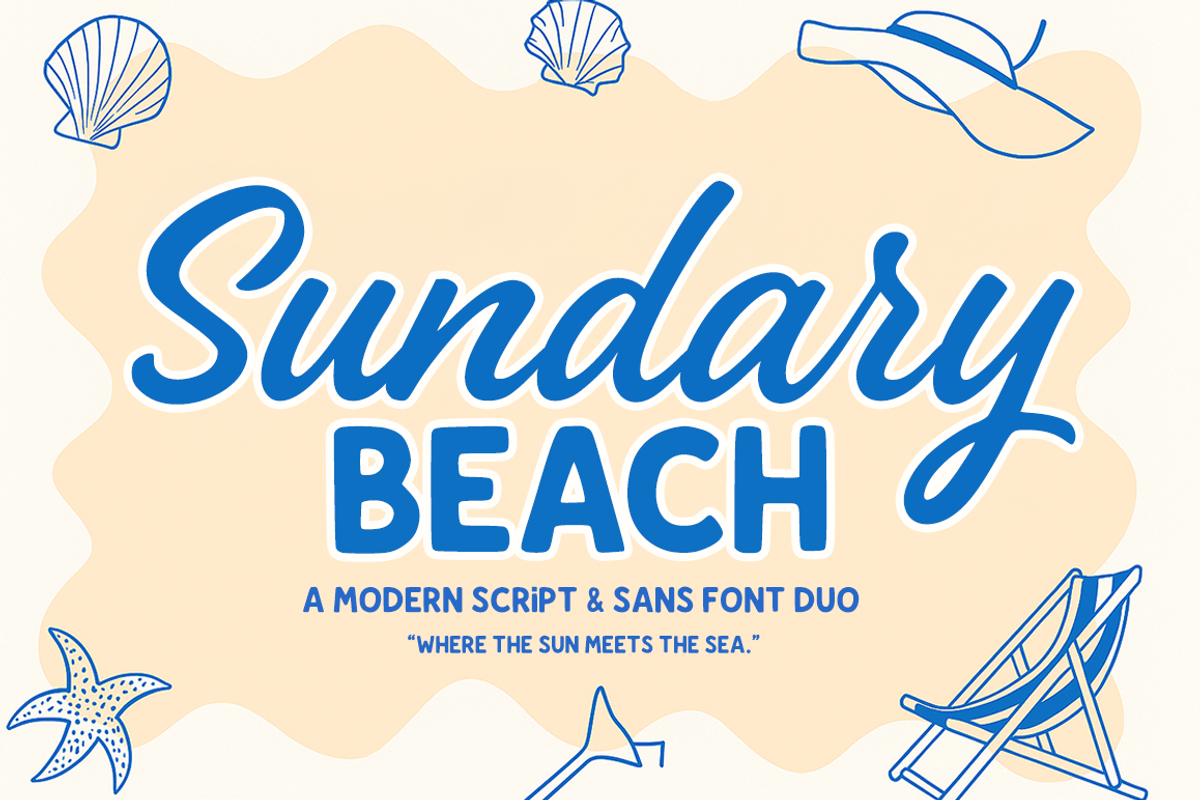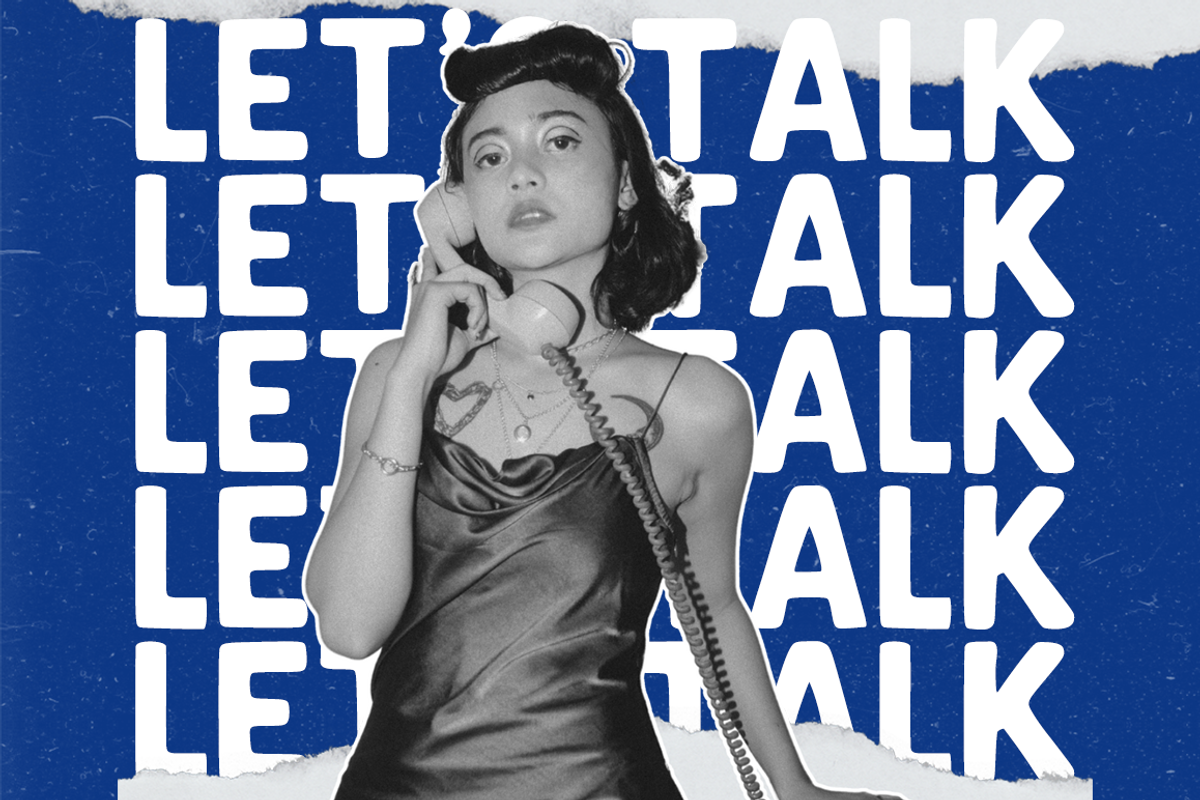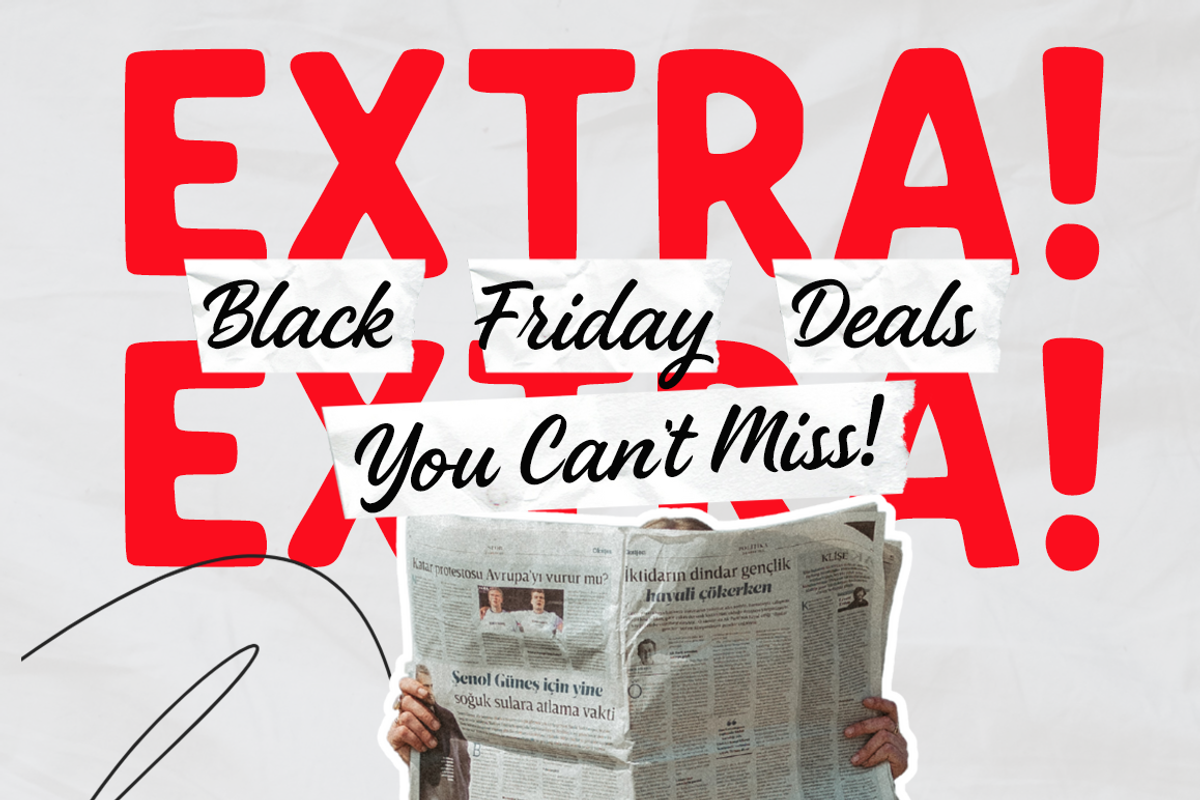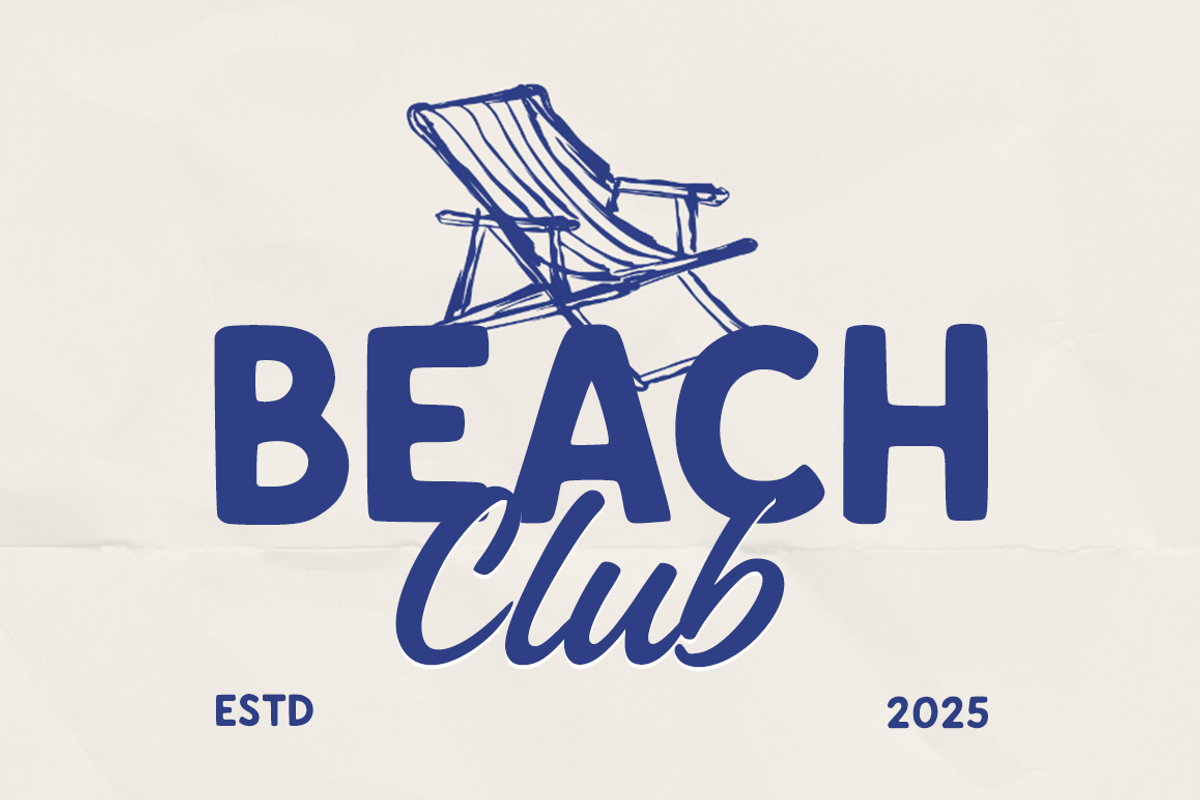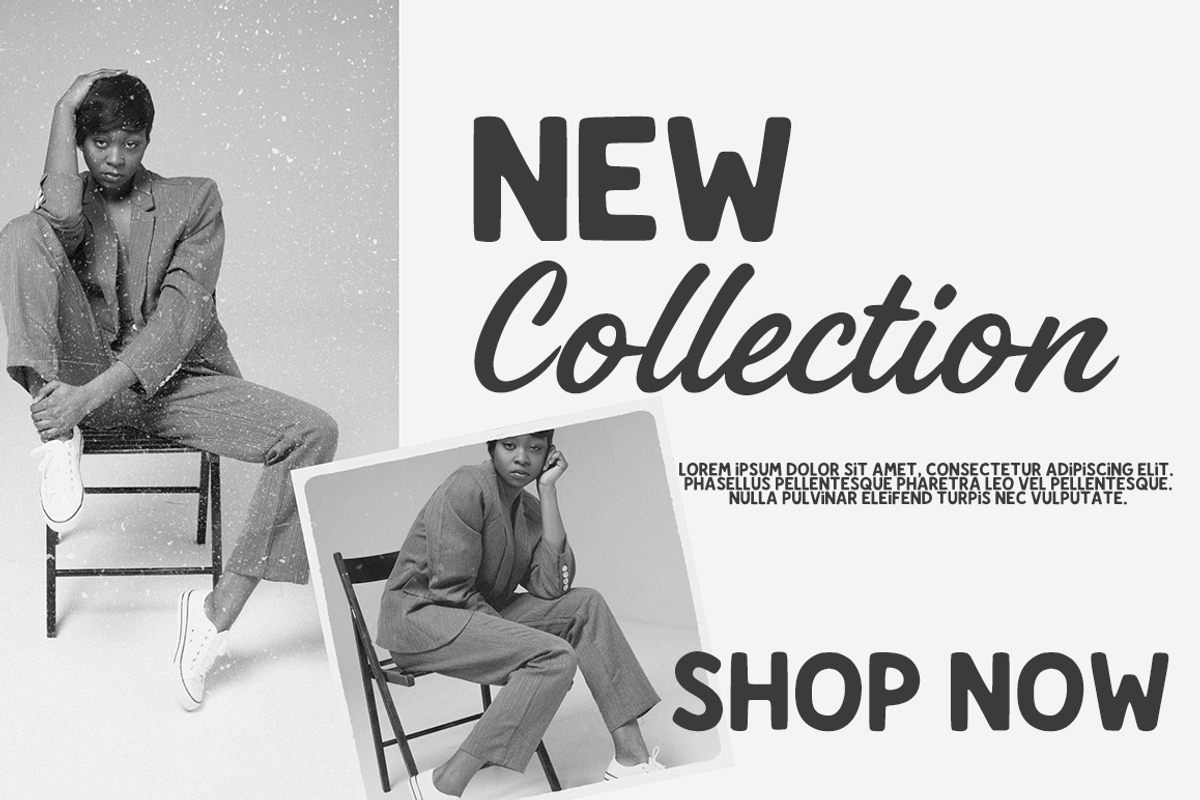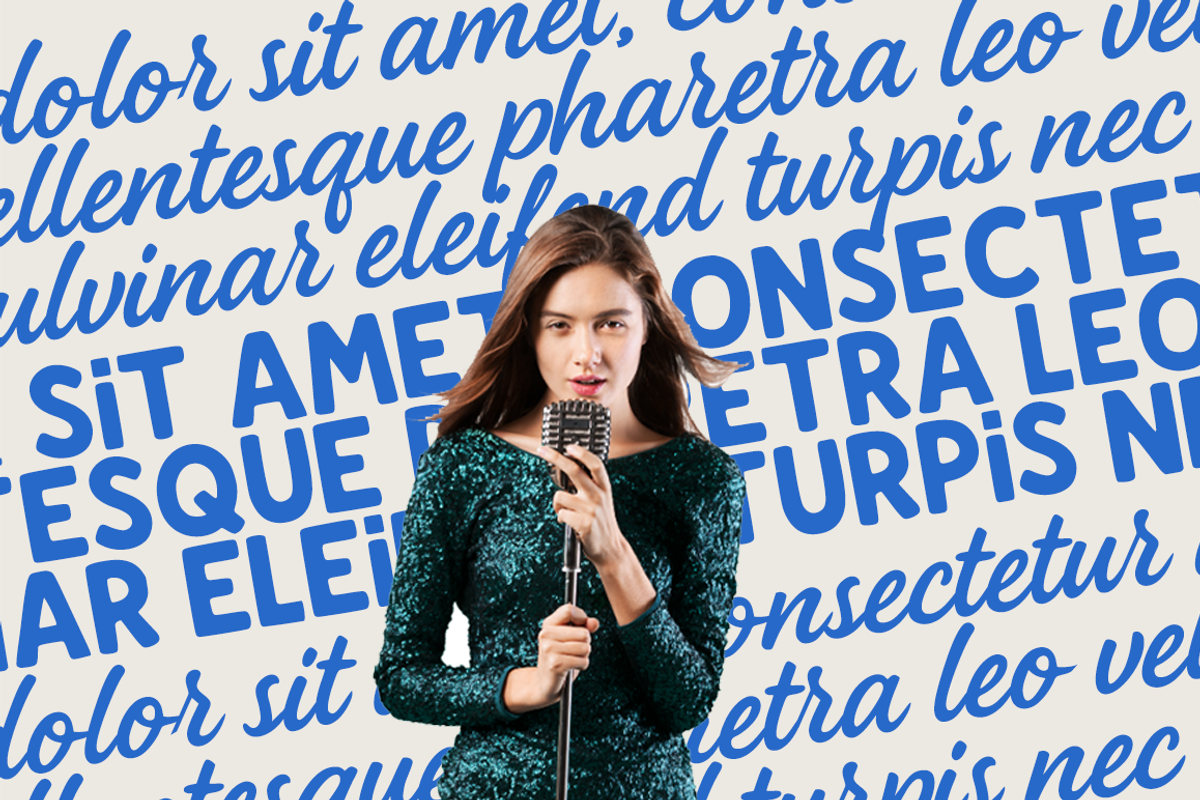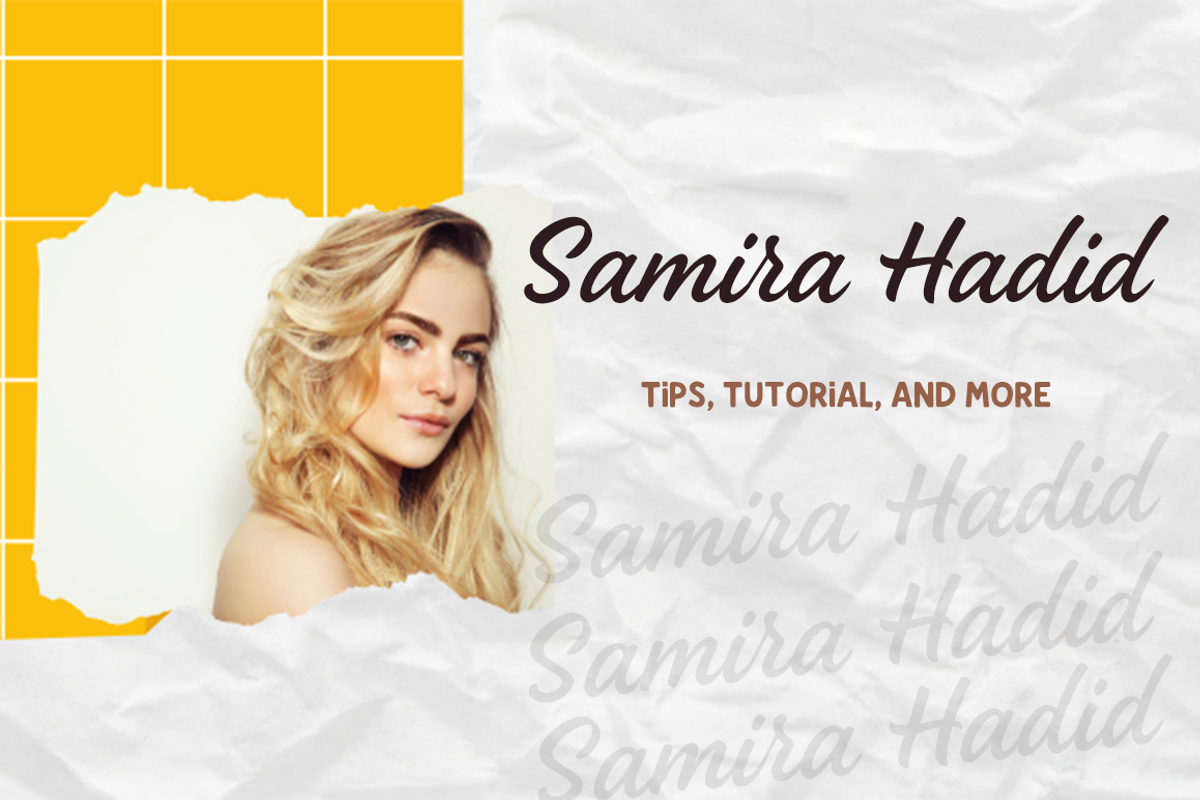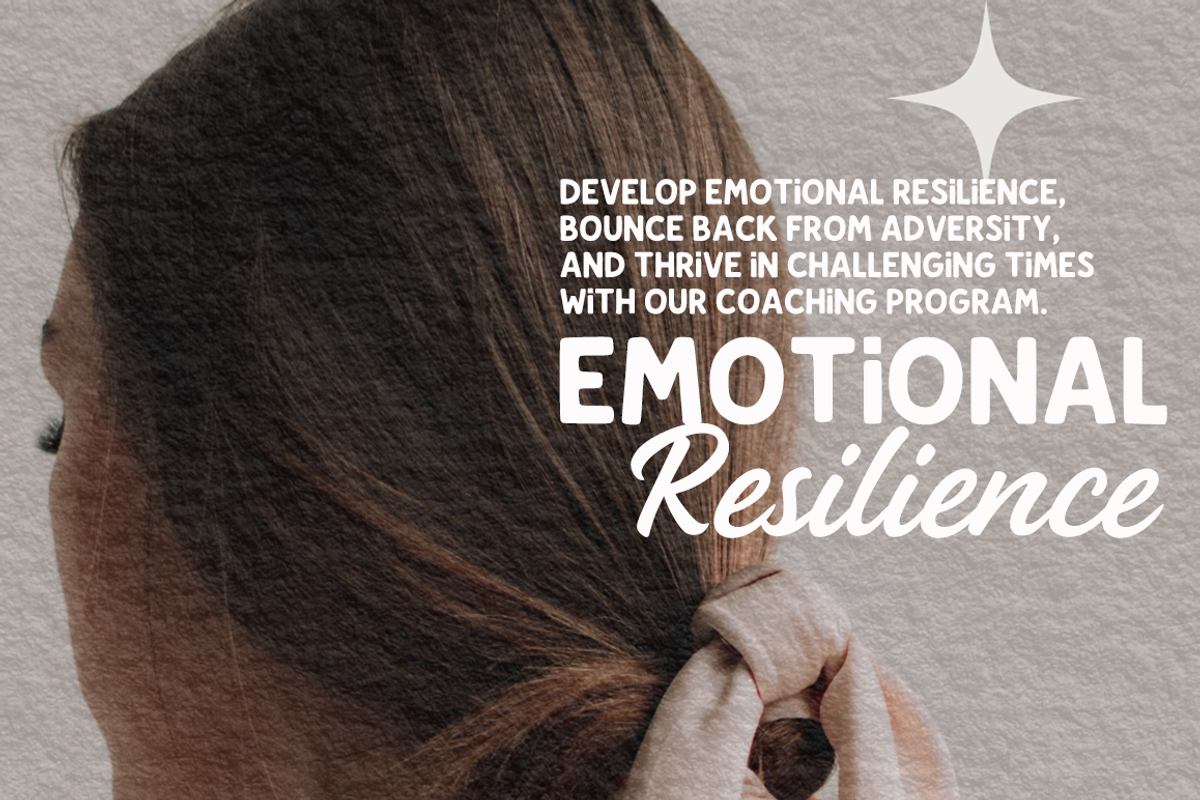
Sundary Beach A Modern Script & Sans
Sundary Beach – A Modern Script & Sans Font Duo Sundary Beach is a stylish font duo that perfectly blends an elegant handwritten script with a clean modern sans. Inspired by the calm and breezy charm of coastal living, this duo offers a beautiful balance between natural flow and professional structure.